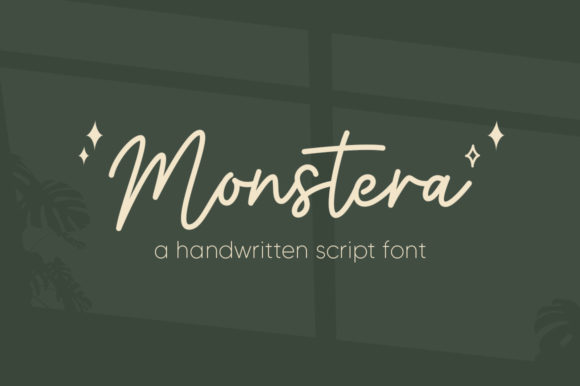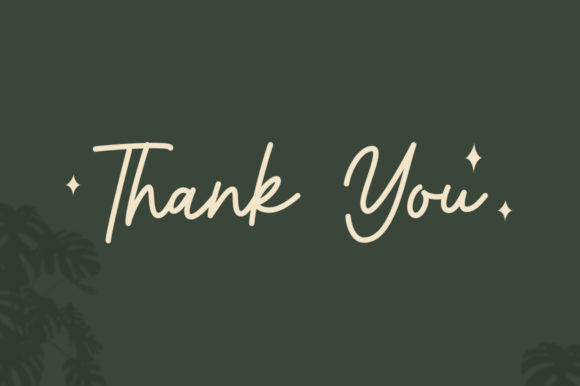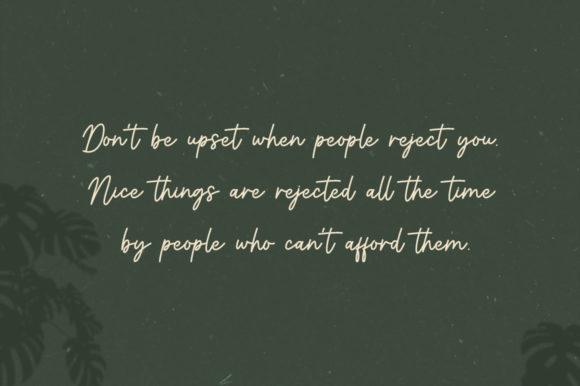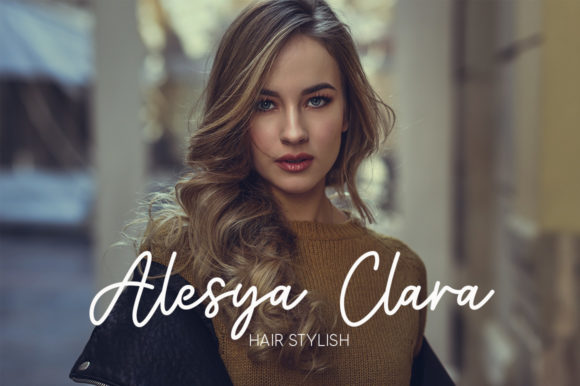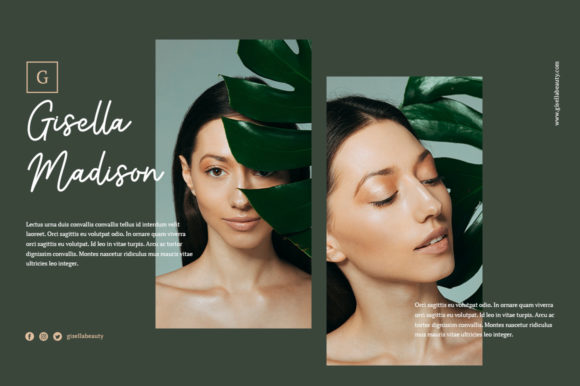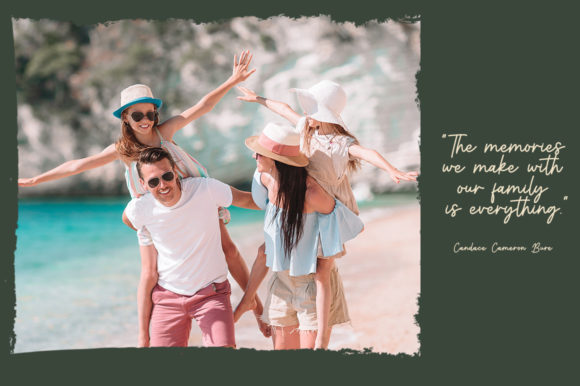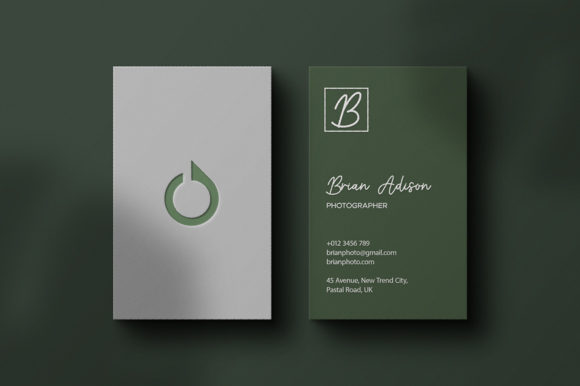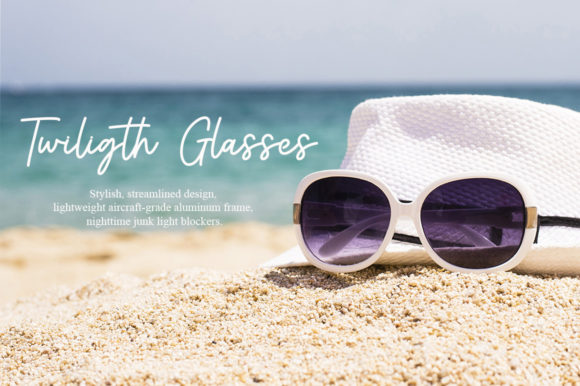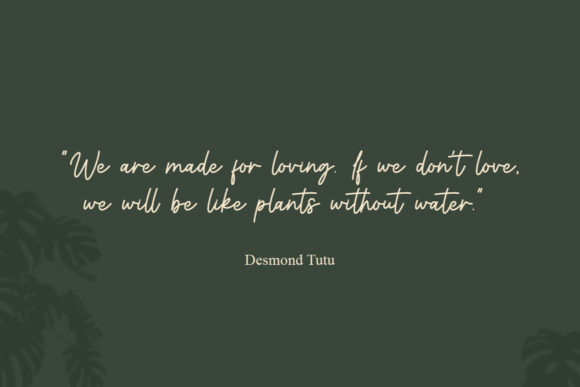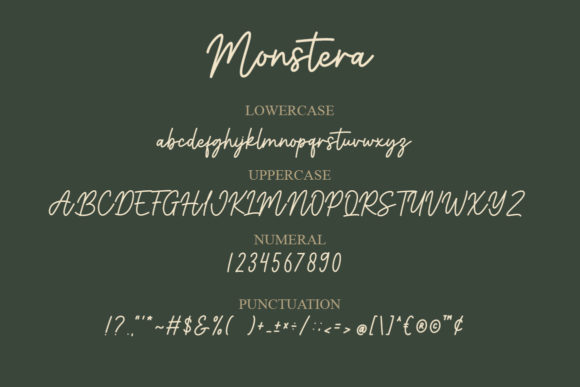
Monstera Font
About Monstera Font
Monstera is a dainty and flowing handwritten font.
Sweet and joyful, this font will be ideal for writing wedding invitations, cards or any other design that may need a romantic, personalized touch!